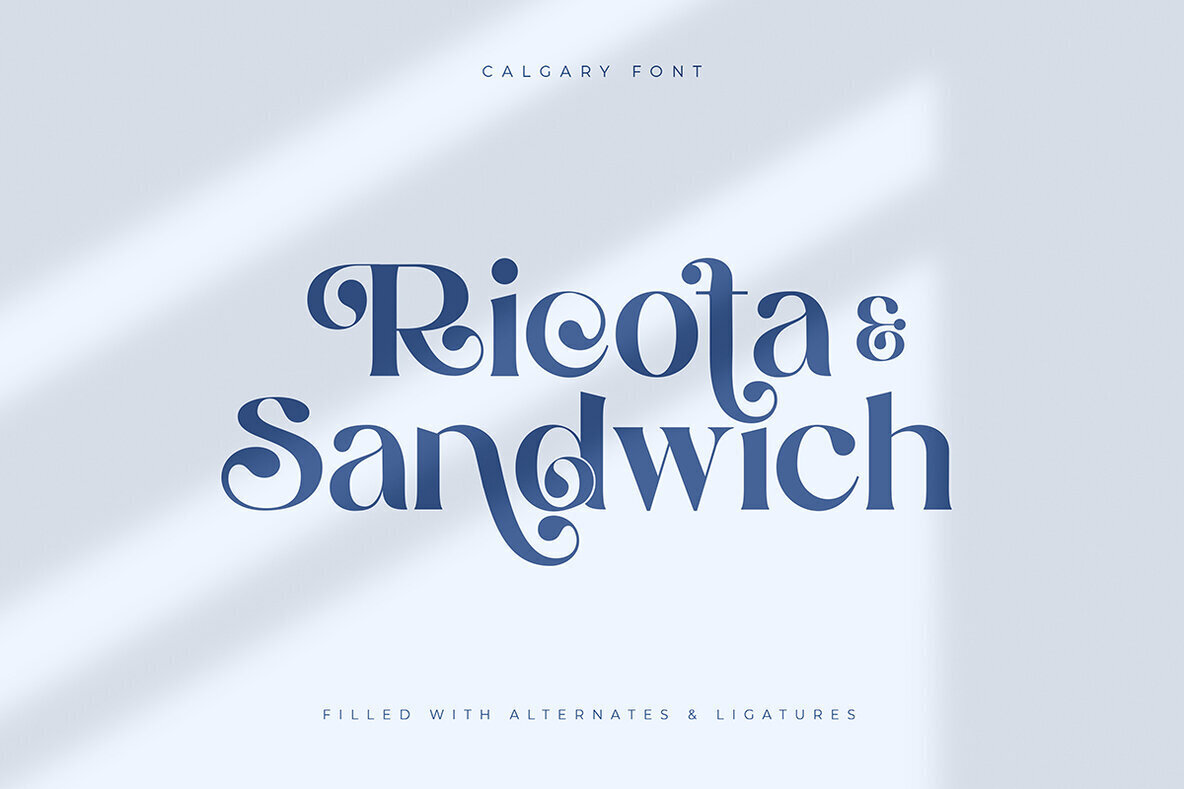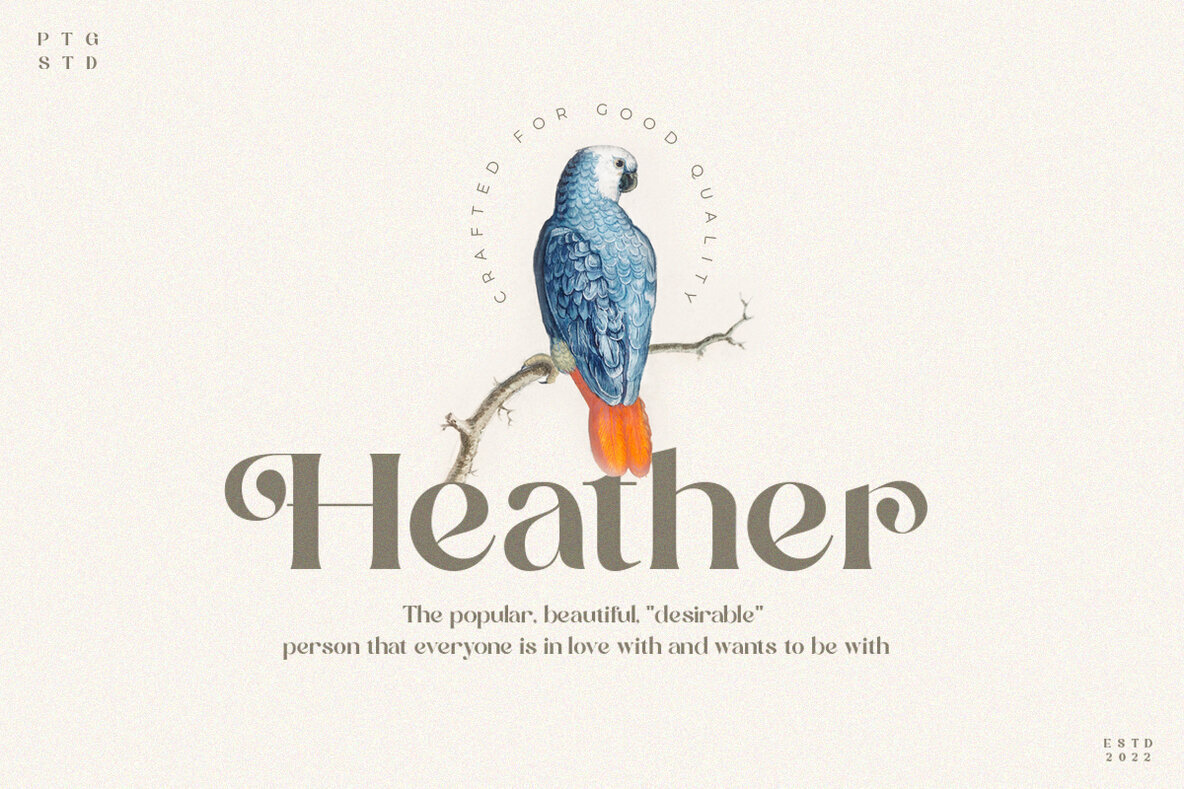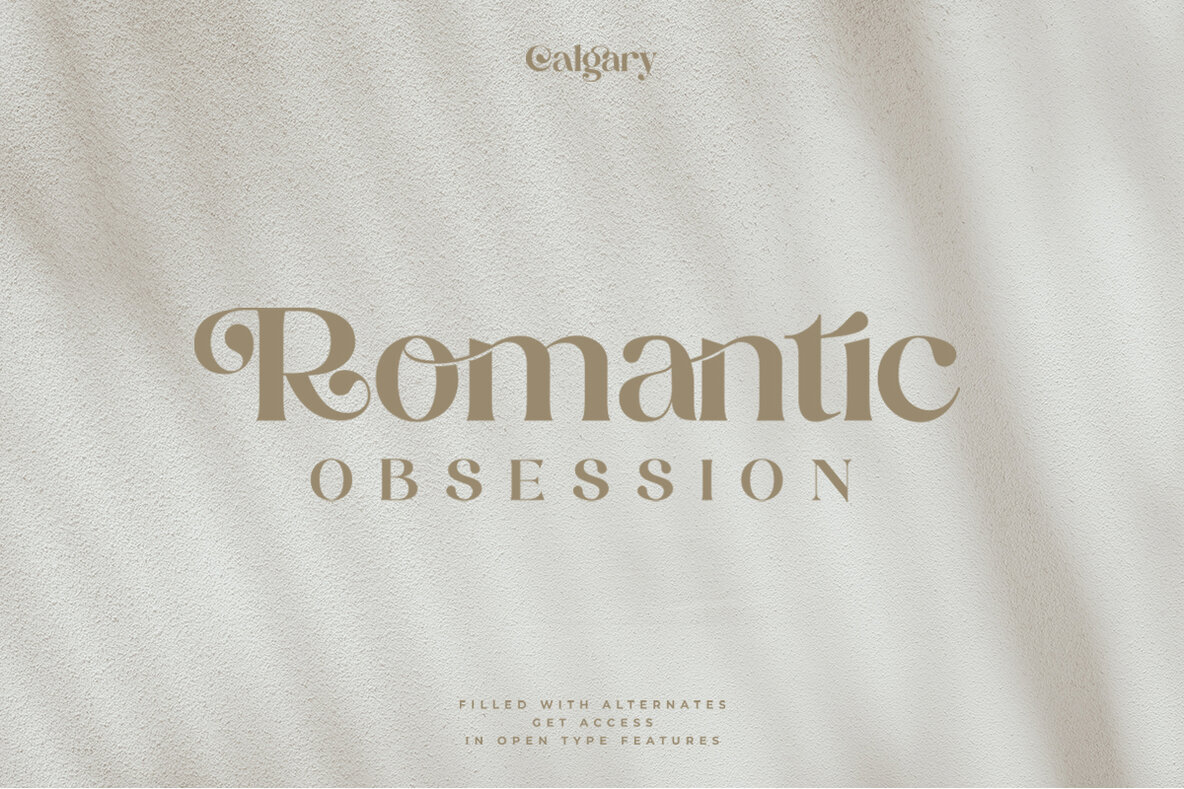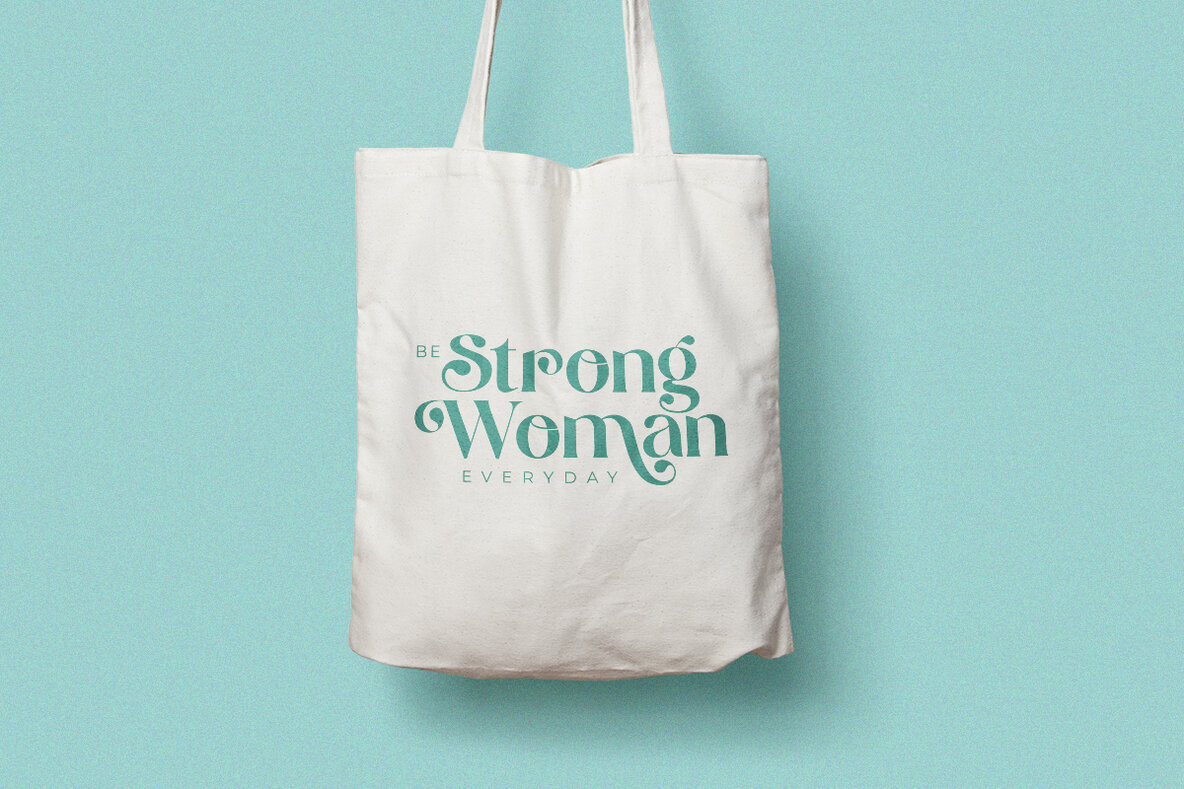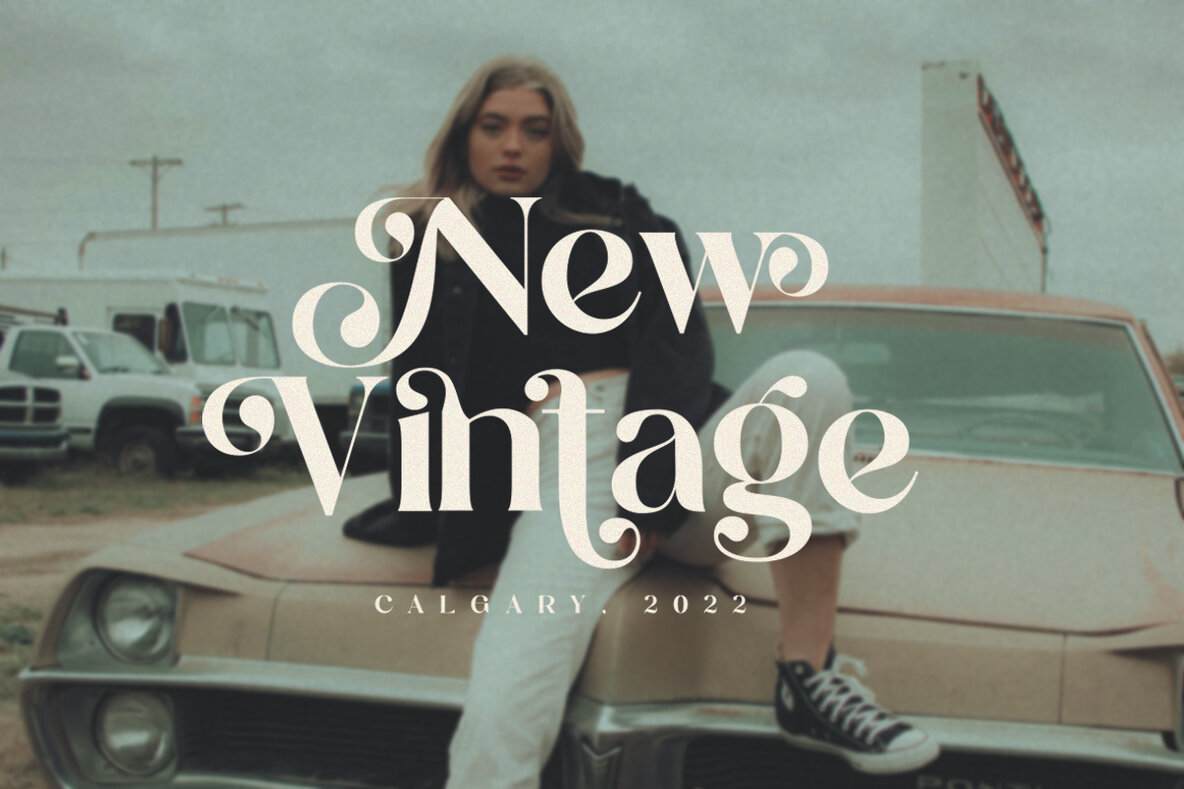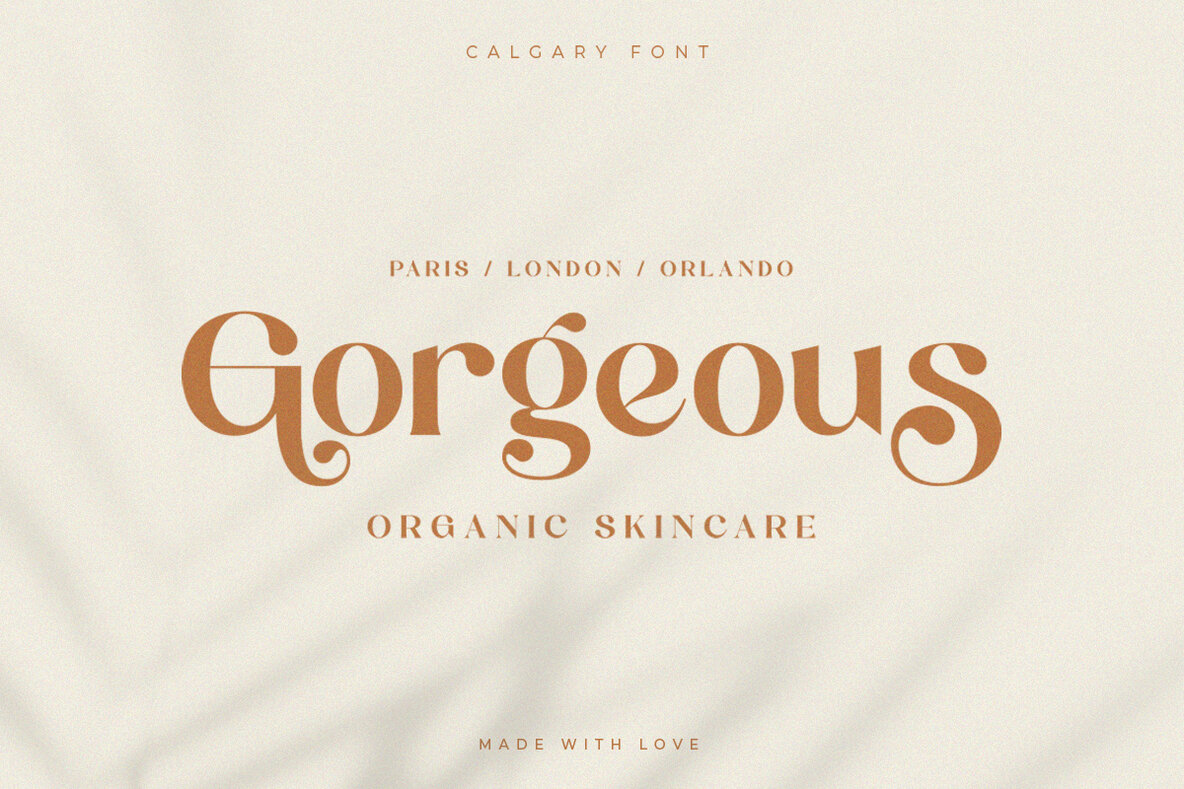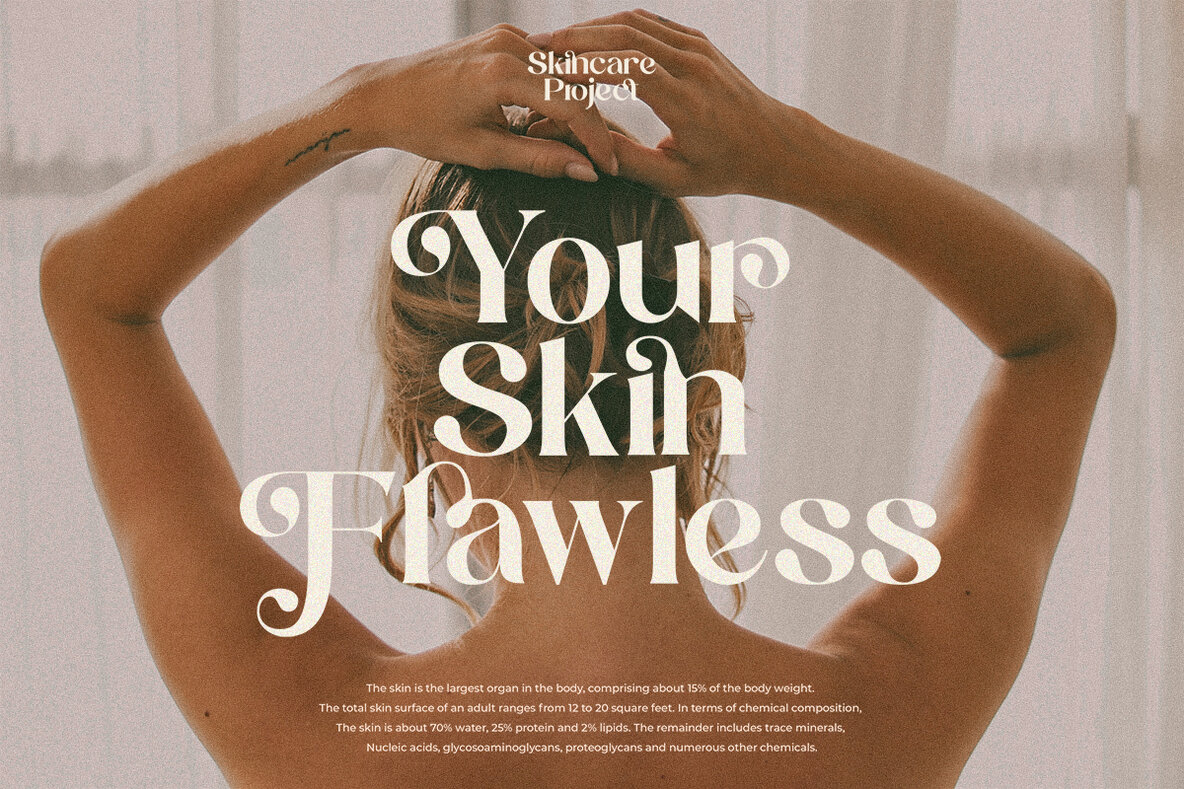
Calgary Font
Calgary
The Calgary font seamlessly blends elegance and modernity, offering a sophisticated touch for any design. Tailored for those with a keen appreciation for typography, it draws inspiration from modern serif typefaces, presenting a versatile option for various creative projects.Calgary: A Modern Serif with Classic Elegance
Let Calgary elevate your design work with its timeless blend of classic style and modern influence.